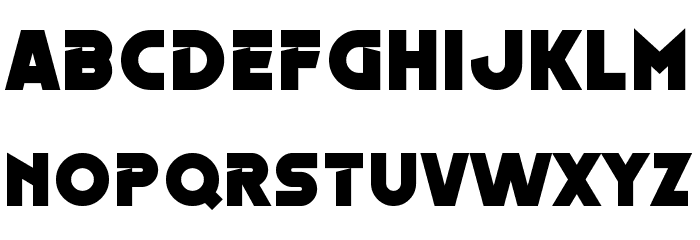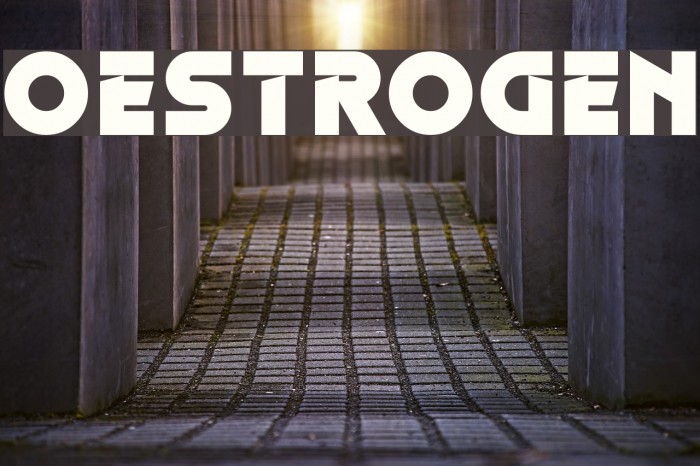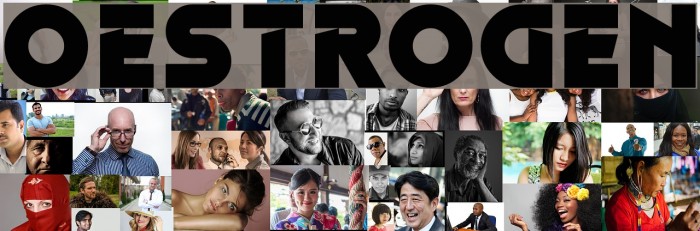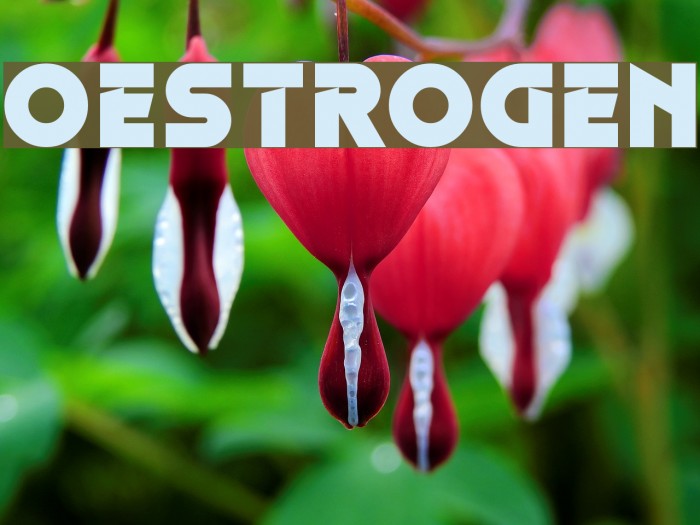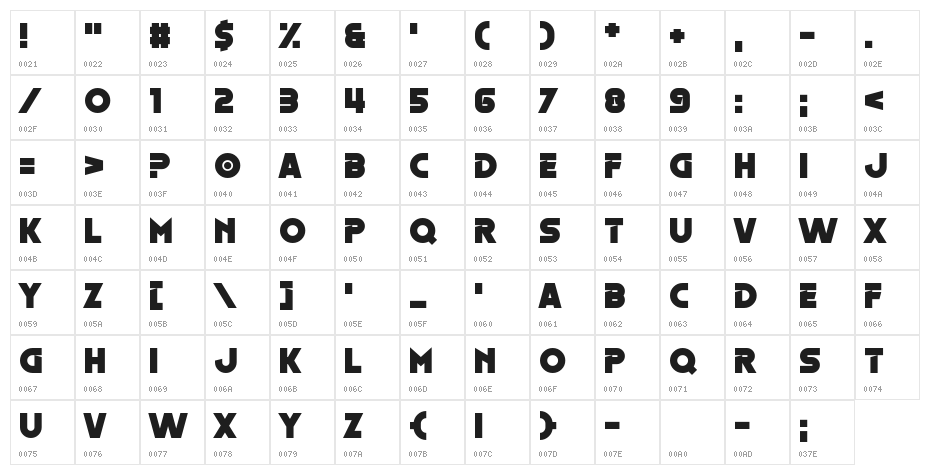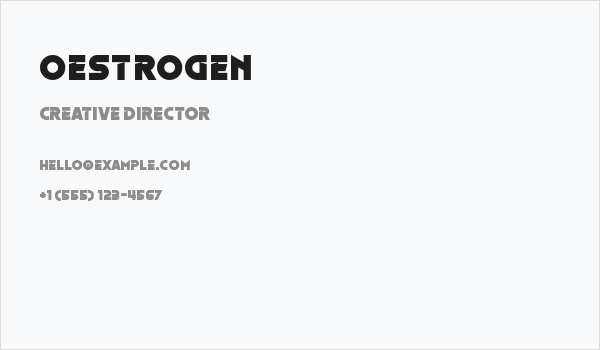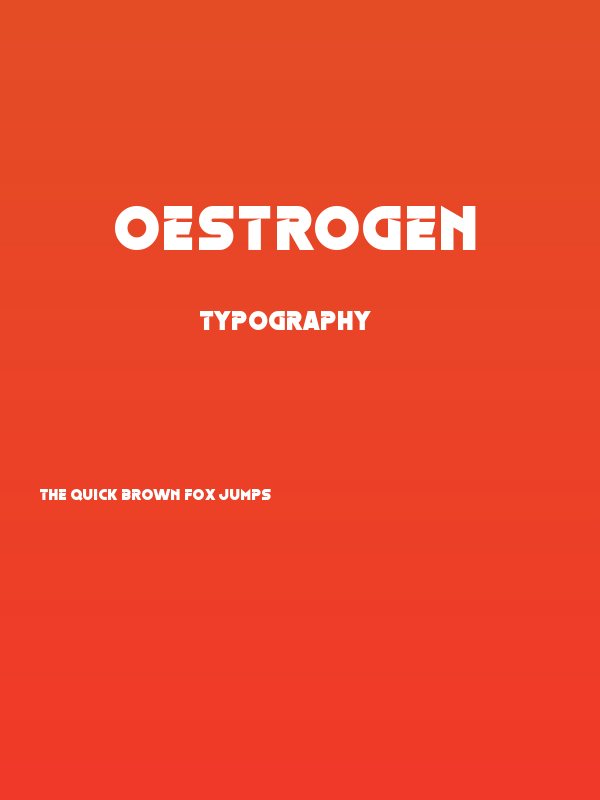
Oestrogen Font
This bold and striking font features a geometric and angular design, characterized by its thick, block-like letters. The uppercase and lowercase letters maintain a consistent weight, creating a uniform appearance. The numbers and special characters follow the same bold style, ensuring a cohesive look across all elements. The font's design is modern and impactful, making it suitable for attention-grabbing headlines and logos. Its strong presence and clear readability make it ideal for projects that require a bold statement.
A bold, geometric font with a modern and impactful design.
- Proposed Projects: Ideal for branding, advertising, posters, and any project requiring a bold, modern look.